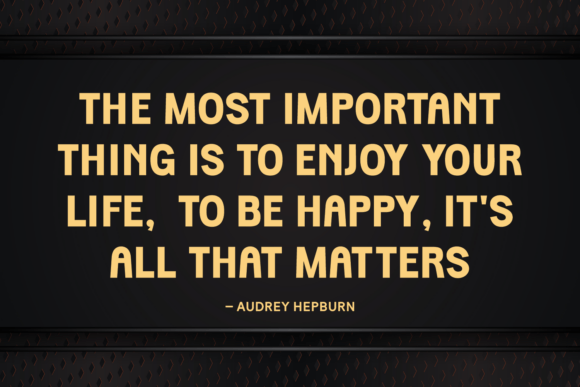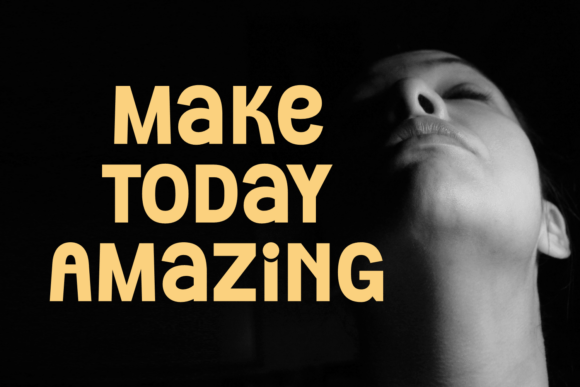
Introduction to Honest Action Font
Have you ever been working on a design project, staring at a blank page, and struggling to find the perfect font to convey the message you want to get across? For designers, finding the right font can be the difference between a project that’s just okay and one that truly stands out. That’s where the Honest Action Font comes in – a game-changing, high-impact sans-serif typeface designed to deliver clarity, power, and maximum visibility.
With its geometric, extra-heavy letterforms and perfectly rounded terminals, the Honest Action Font is a design resource that’s hard to ignore. Whether you’re working on a corporate branding project, creating striking digital advertisements, or designing powerful posters, this versatile font is a clean, confident, and reliable choice for any creative project.
Key Features of Honest Action Font
- Features a unique, bold font style that is perfect for action-packed and dynamic designs.
- Ideal for use in logos, titles, headings, and other design elements where a strong, attention-grabbing font is needed.
Honest Review: Honest Action Font
One of the standout features of the Honest Action Font is its transparent background, making it easy to use in any creative project without worrying about background colors clashing.
- ✨ High-quality design with crisp, clear lines
- ✨ Perfect for creating bold, eye-catching headlines
- ⚠️ May not be suitable for small text due to its bold nature
Overall, I’m impressed with the Honest Action Font. It’s a great option for designers looking for a free, high-quality design resource that’s perfect for creative projects. While it may have some limitations, it’s definitely worth checking out.
Honest Action Font
The Honest Action Font is a high-quality design resource available for free download. It features a transparent background, making it versatile for various creative projects.
For optimal results, use the Honest Action Font in combination with other design elements that complement its style.
The Honest Action Font is suitable for a wide range of creative projects, including:
- Marketing materials.
- Branding and logos.
- Infographics.
- Presentations.